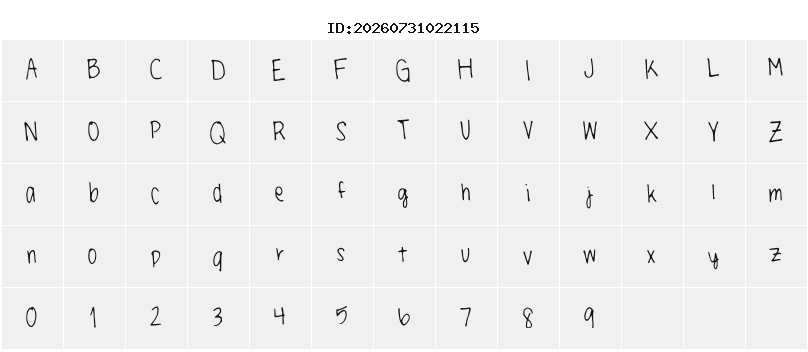
About LittleMissPaperMoonsHandwriting.otf
LittleMissPaperMoonsHandwriting.otf is a modern, elegant sans-serif font designed for ultimate readability and visual harmony. Perfect for branding, headlines, web design, and print materials.